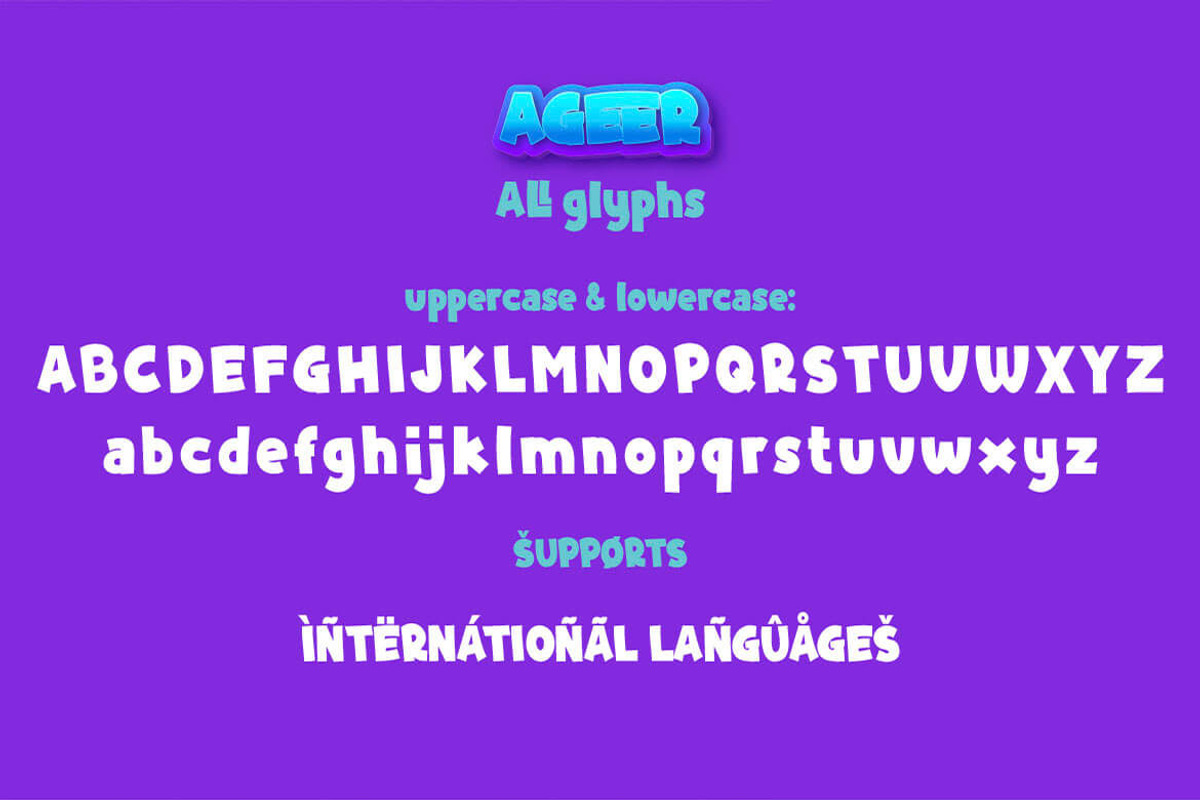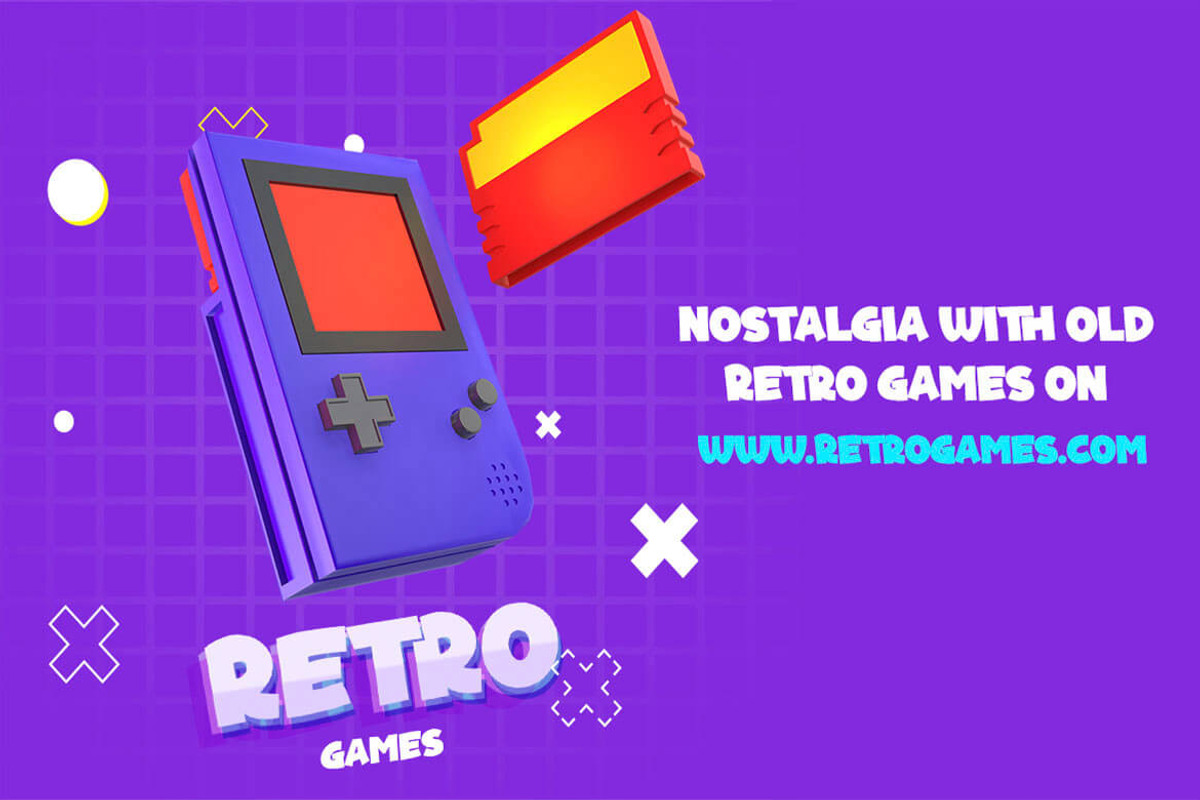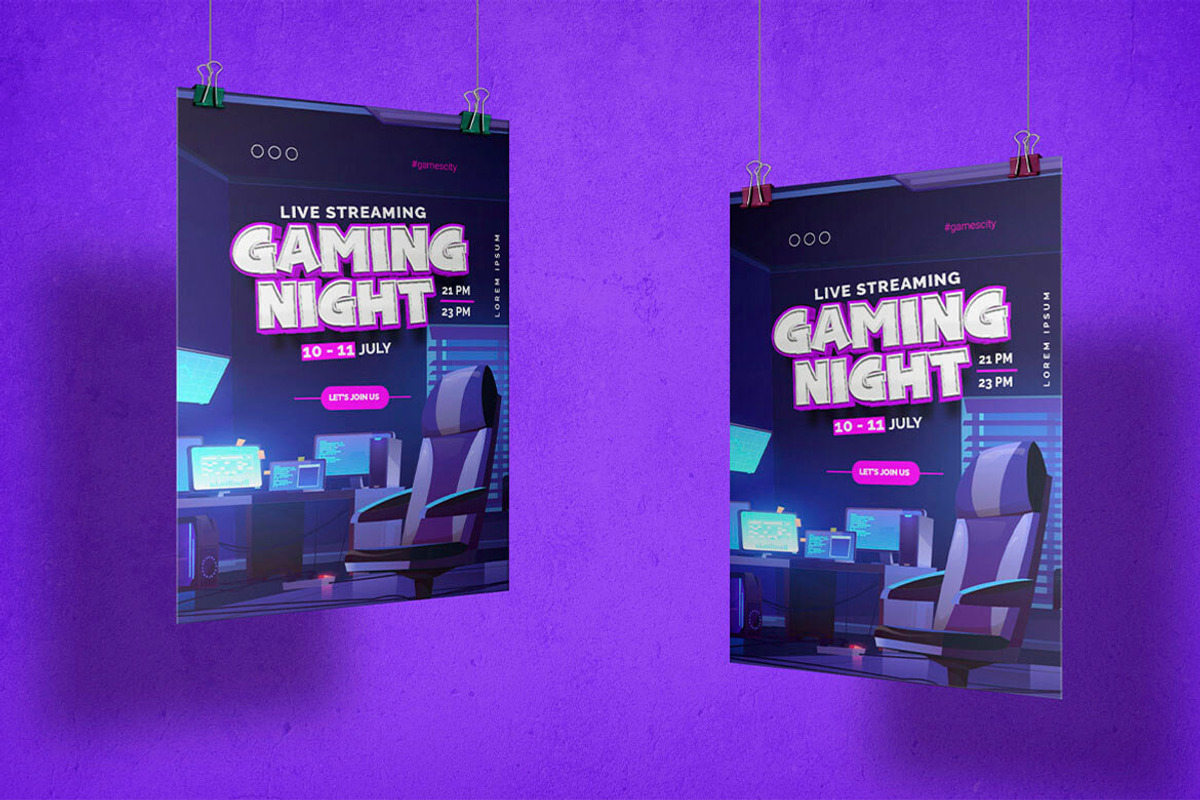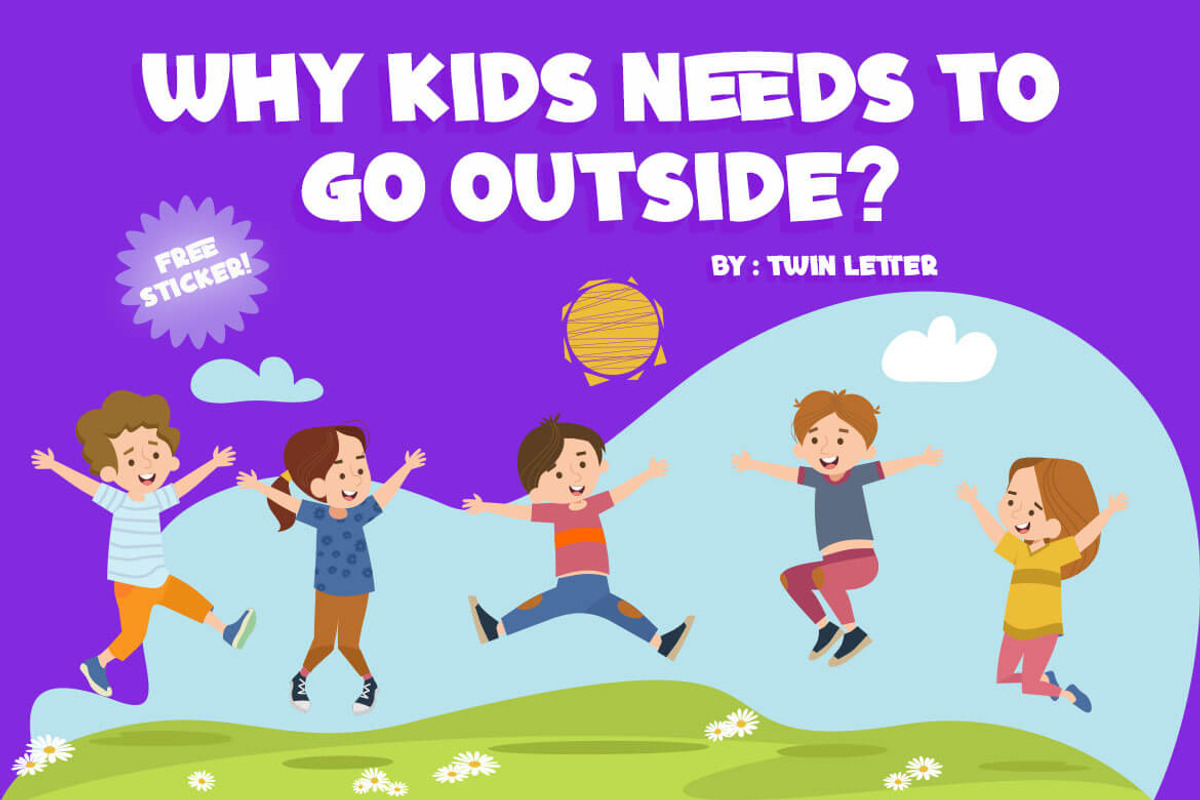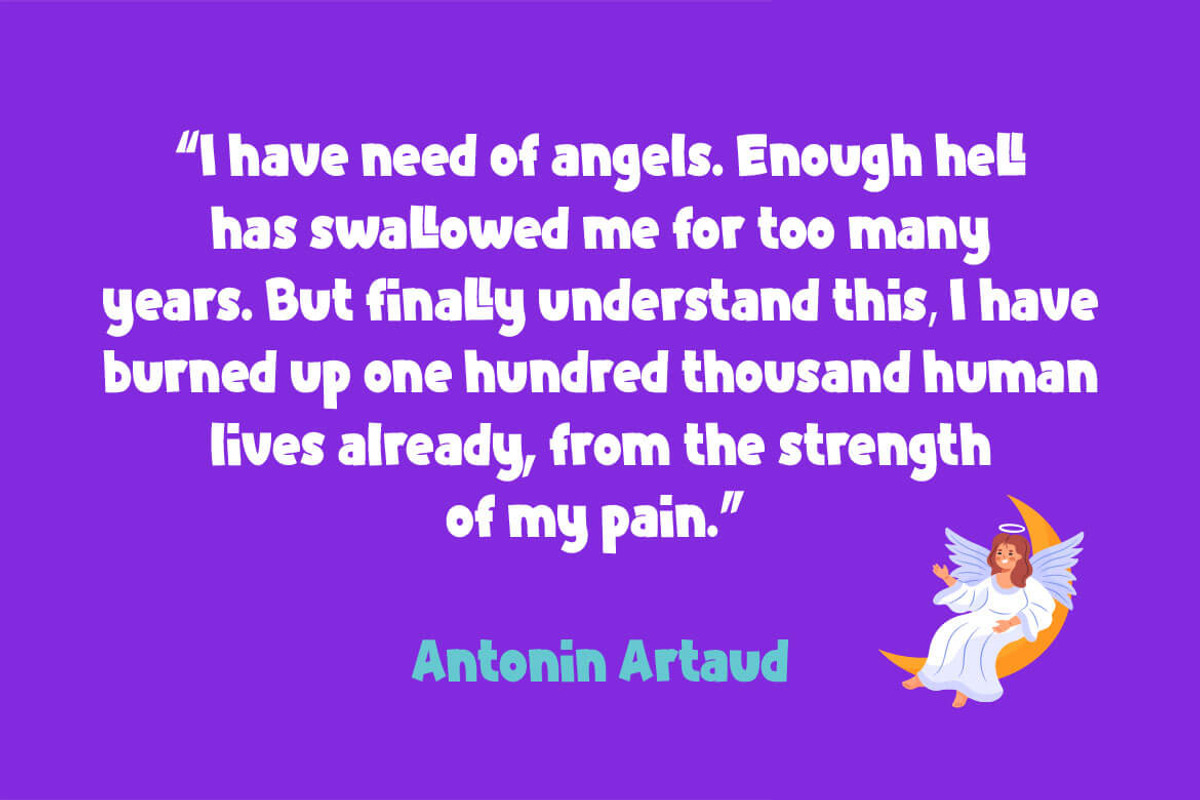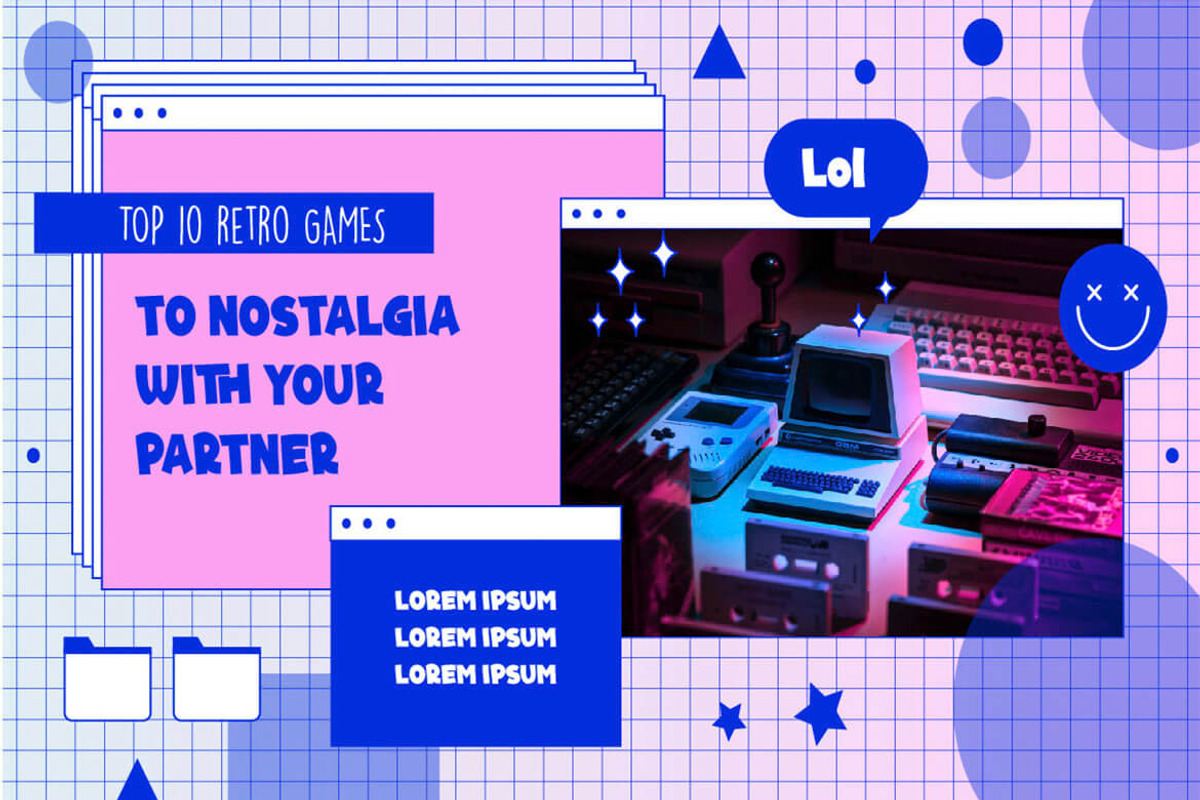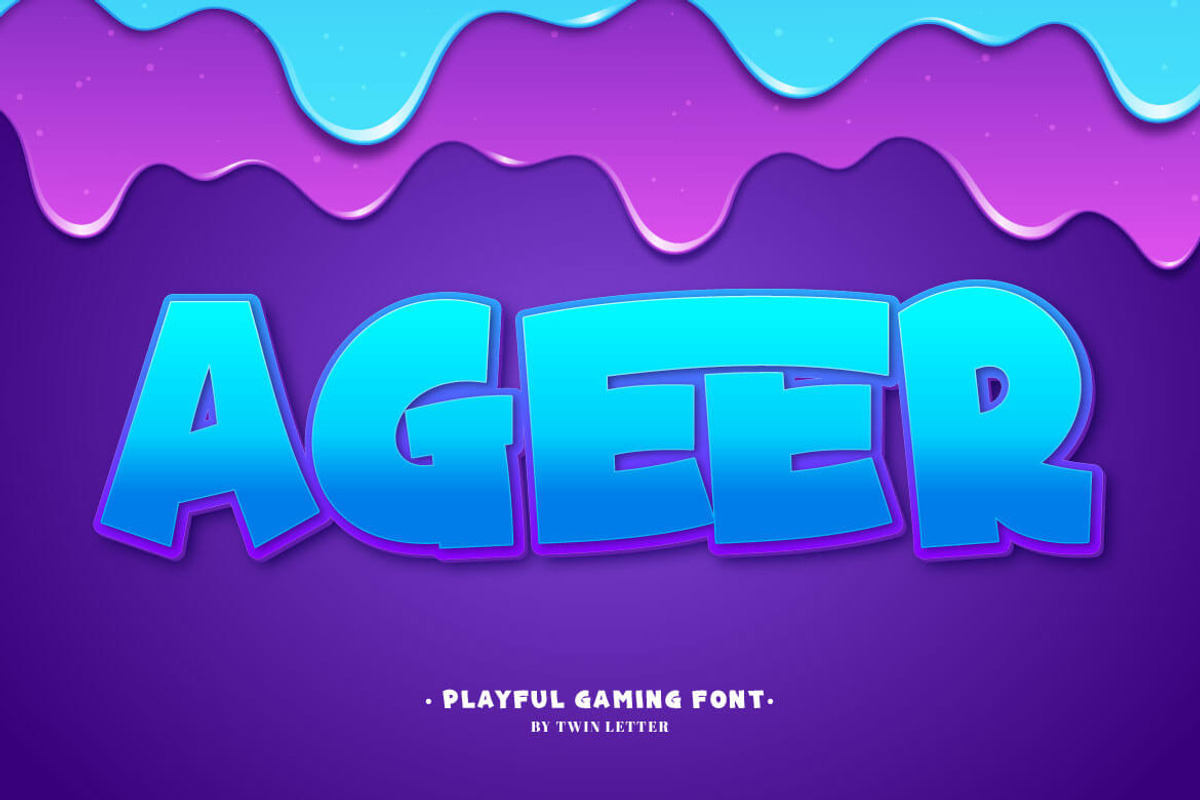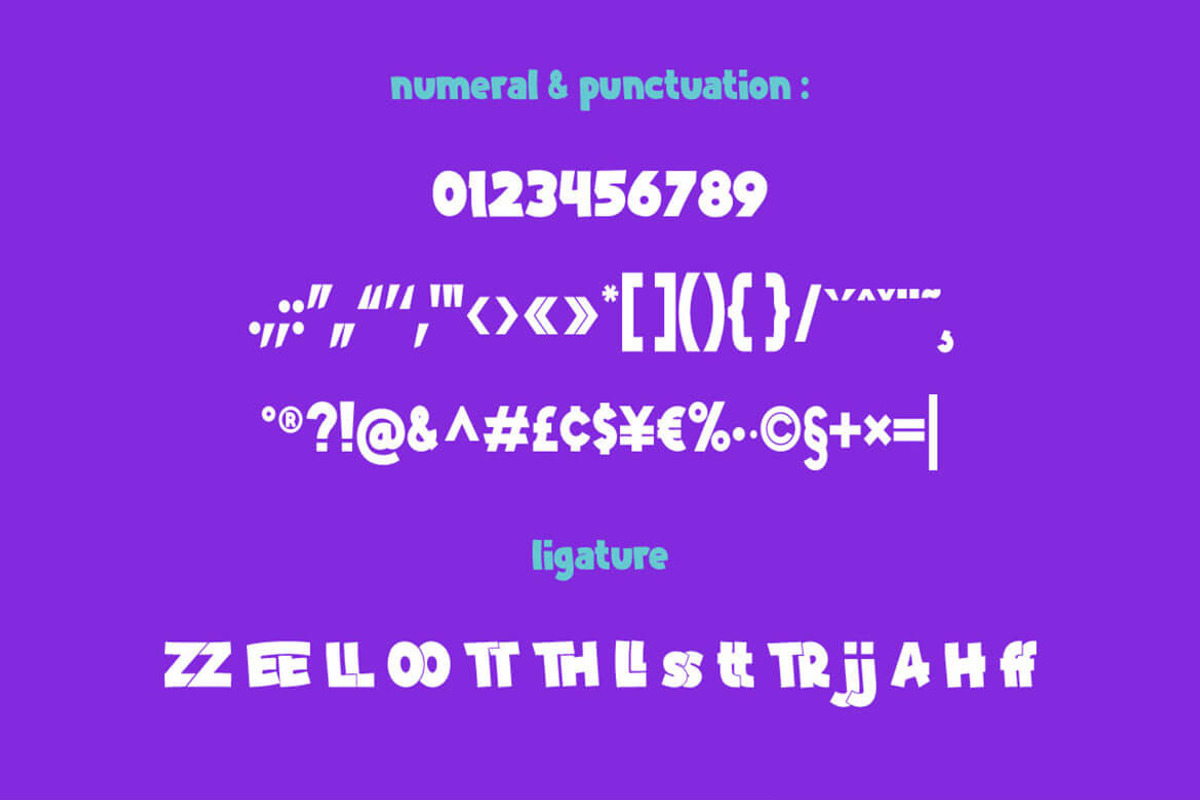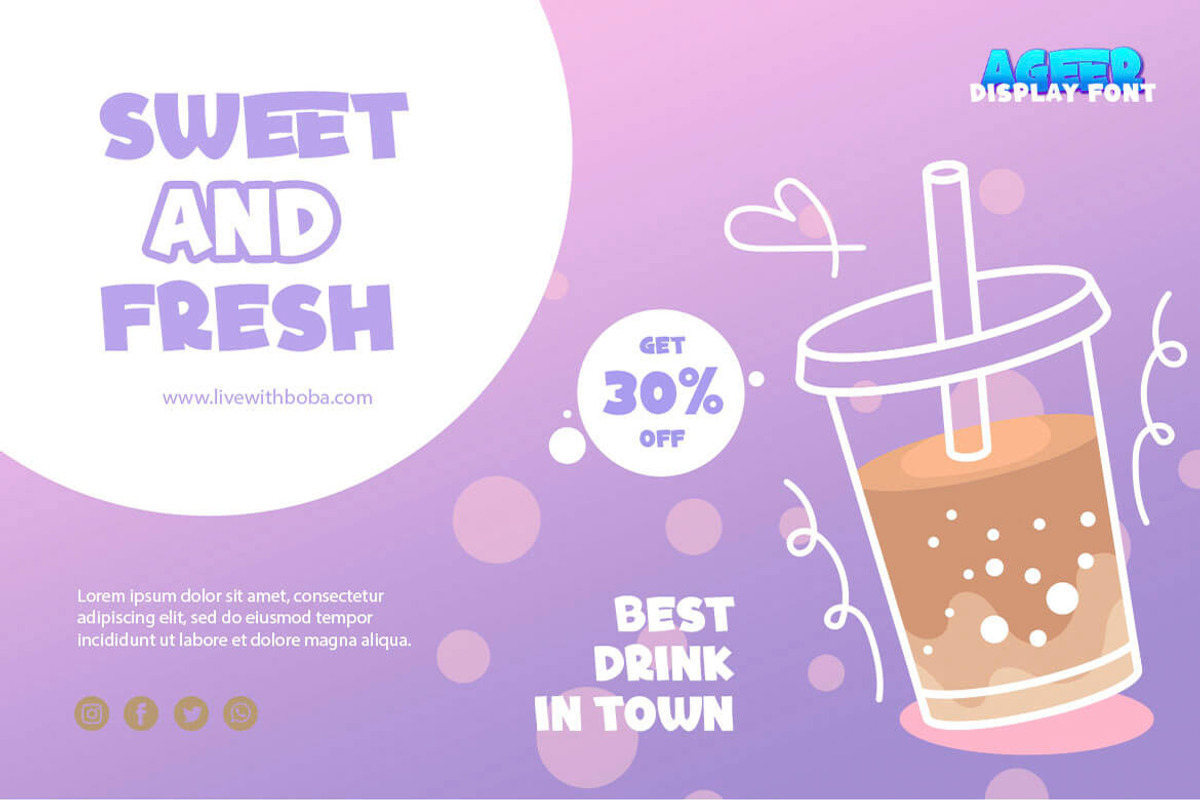
Agerr
Introducing Agerr, our newest font. Ageer is a cheerful, soothing typeface with a delightful theme. Because of its relaxed attitude, you may use this font in a variety of projects to increase the quality of your design appearance, making it more beautiful and elegant.
This font is perfect for games, sporting events, branding, banners, posters, movie titles, book titles, quotes, logotypes, and more.
of course, your various design projects will be perfect and extraordinary if you use this font because this font is equipped with a complimentary font family, both for titles and subtitles and sentence text, start using our fonts for your amazing projects.